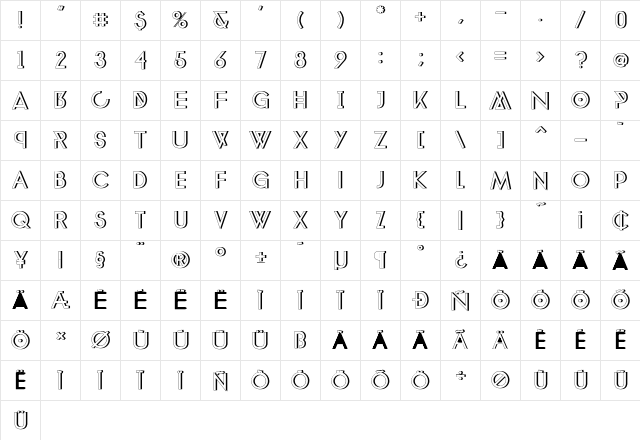
phantom regular 3D Free Font
phantom regular 3D
Style: regular 3D
Foundry: Frank Hemmekam
Designer: Frank Hemmekam
Year: 2013
phantom Family
phantom regular 3D
Design Context for phantom
phantom is a composed and adaptable typeface that performs quietly and consistently across a wide range of design contexts.